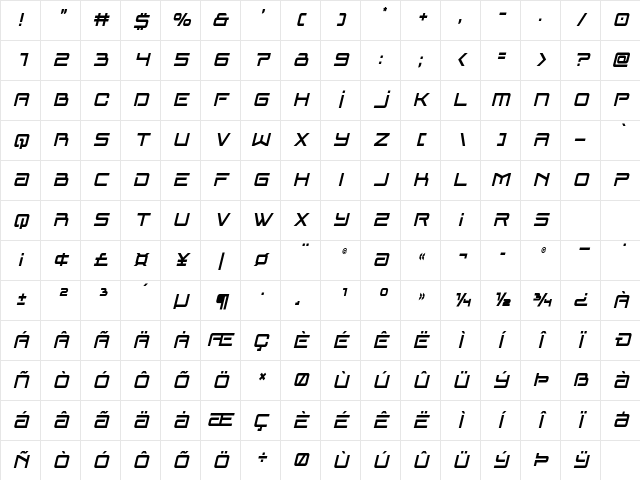
Blade Singer Condensed Italic is a composed and adaptable typeface that performs quietly and consistently across a wide range of design contexts. The slanted form adds forward momentum and visual energy. Its narrow stance lets it pack a punch even in space-constrained designs.